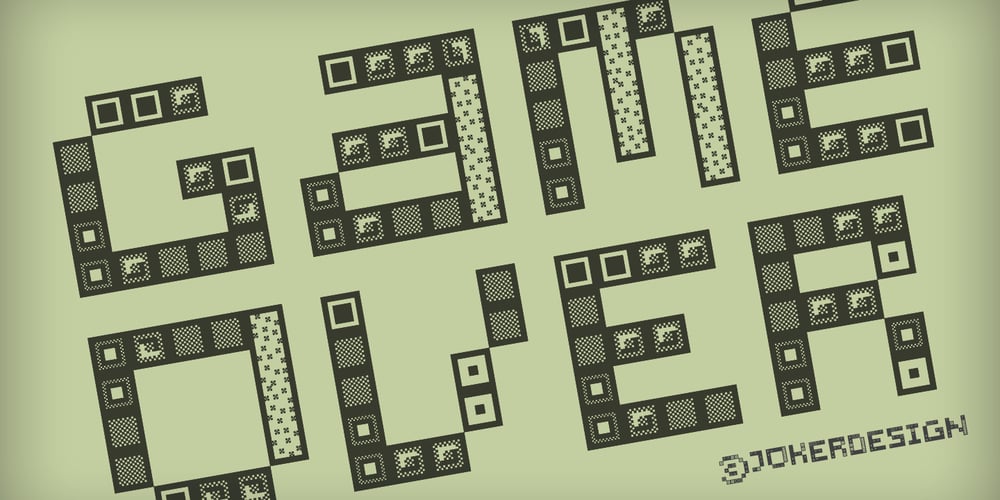
Cristal Ttris Font Family was designed by Johannes Krenner and published by Johannes Krenner. Cristal Ttris contains 2 styles and family package options. This Font is inspired by the Nintendo game: Tetris® It has 2 styles: BOLD and THIN. They both have simulated greyscale and can be used out of the box like you see them on the pictures. It comes with more than 450 glyphs per style. More than capable of supporting all european languages, small caps and different numeral figures.